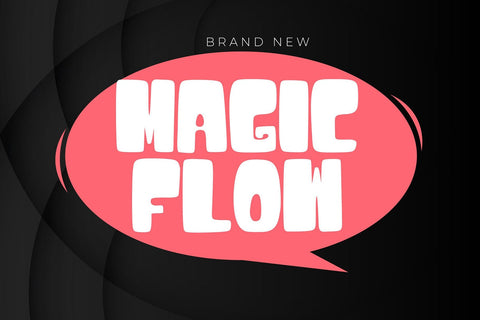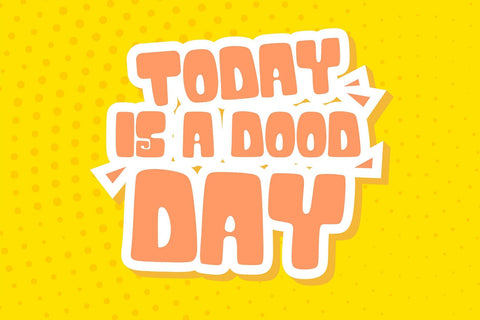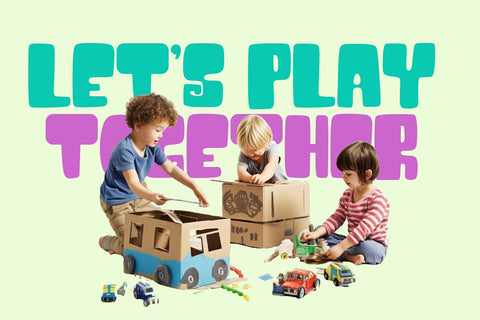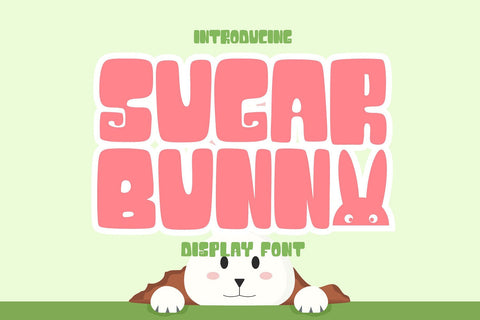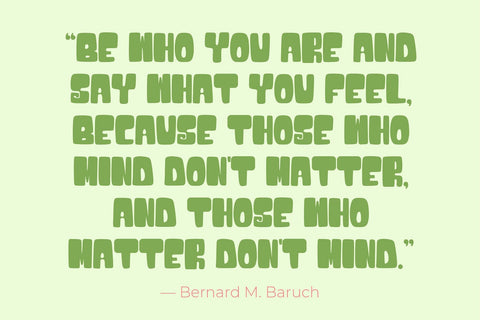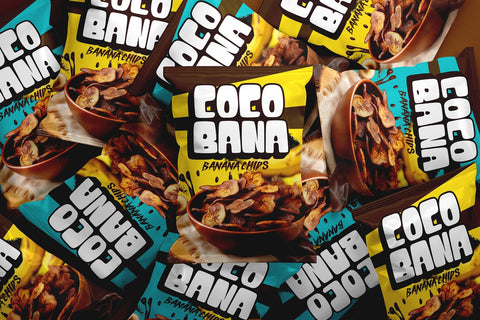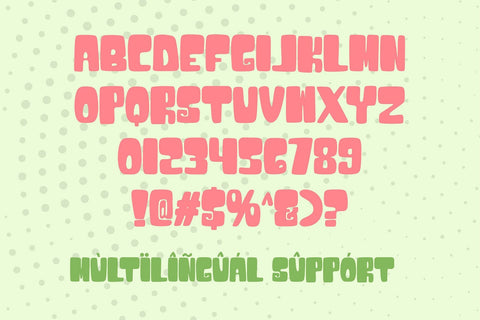
Sugar Bunny - Playful Display Font
Bring a dash of sweetness and charm to your designs with Sugar Bunny, the playful display font that radiates fun and whimsy. This delightful typeface features bouncy, rounded letters that capture a sense of joy and creativity, perfect for projects needing a cute and friendly touch.
🌸 Charming Playfulness: Sugar Bunny’s light-hearted design brings a smile with every curve. It’s ideal for children’s products, greeting cards, party invitations, and branding that craves a youthful, bubbly vibe.
🎨 Versatile & Engaging: Whether it’s for digital or print use, this font’s clear and bold characters make it versatile and engaging. Sugar Bunny’s unique style enhances headlines, social media posts, and packaging with its eye-catching, fun-filled personality.
Infuse your designs with a sprinkle of joy and a dose of adoration with Sugar Bunny – the perfect choice for projects that need a playful twist.
- Unique Characters